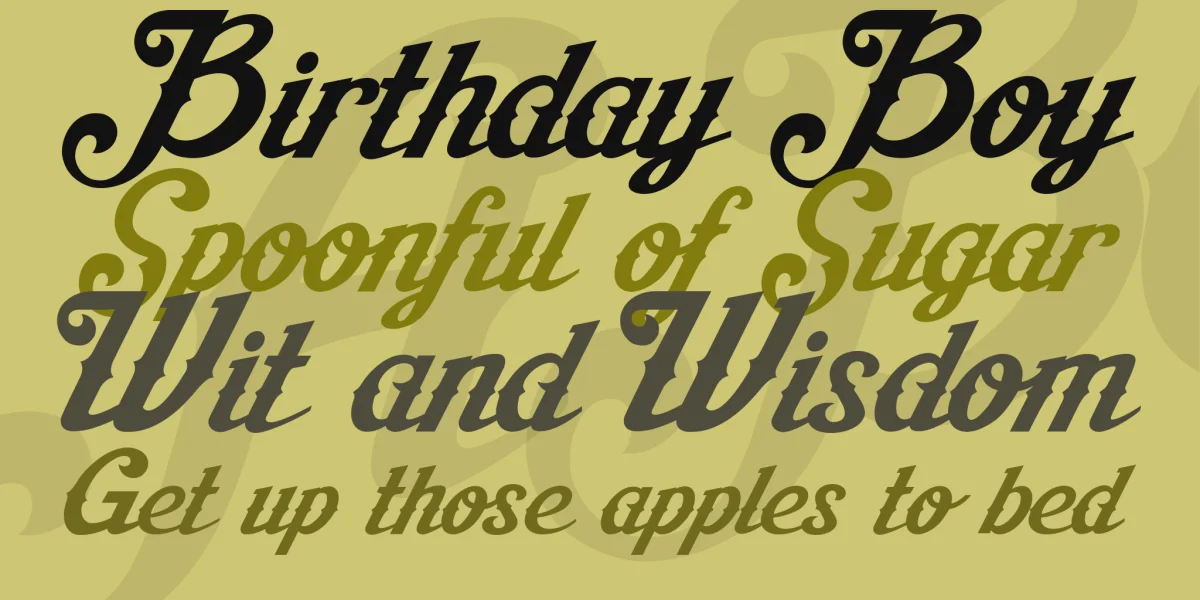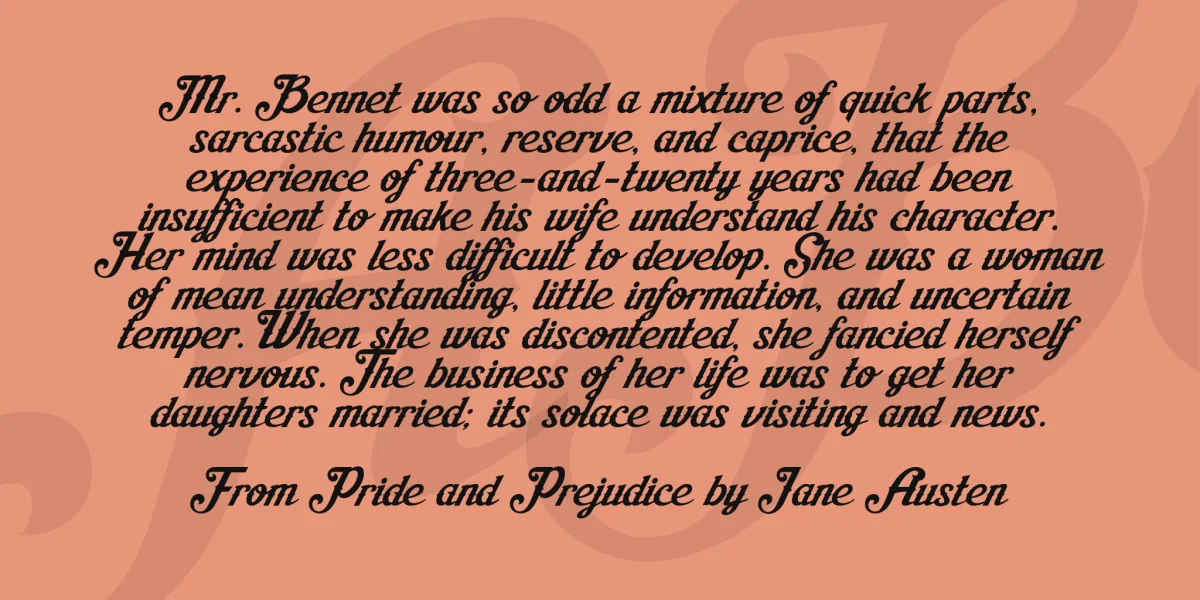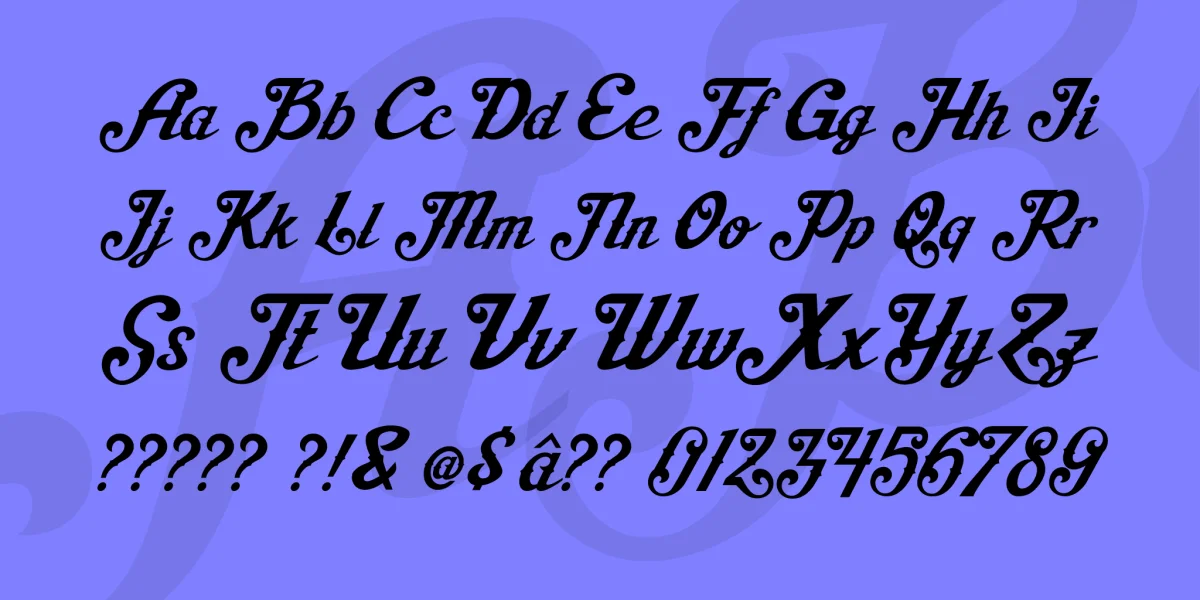
Aisha is a script font with Victorian taste. Classic and old stylish. Good for Logos, Titles, Tees Design or Indie flyer and Poster. Add the swashes alternates at the end of your words and make your typography look great.